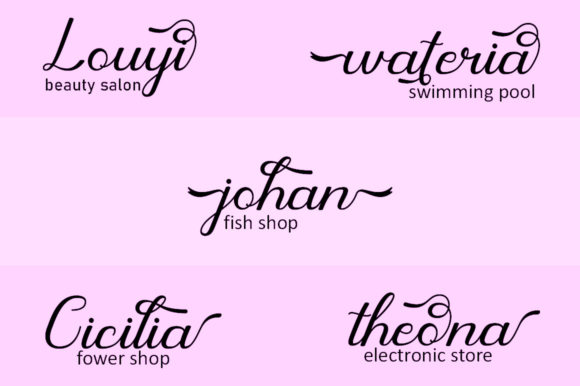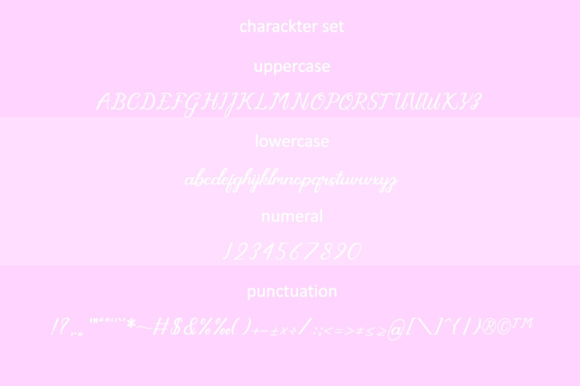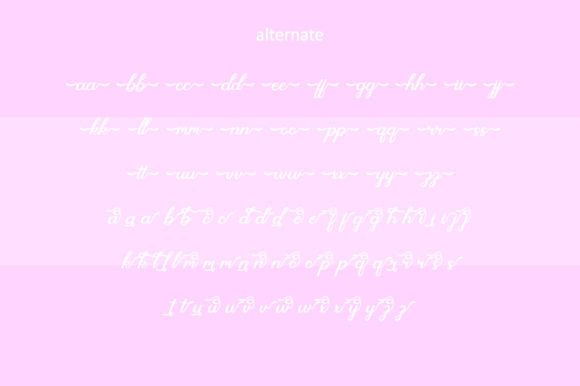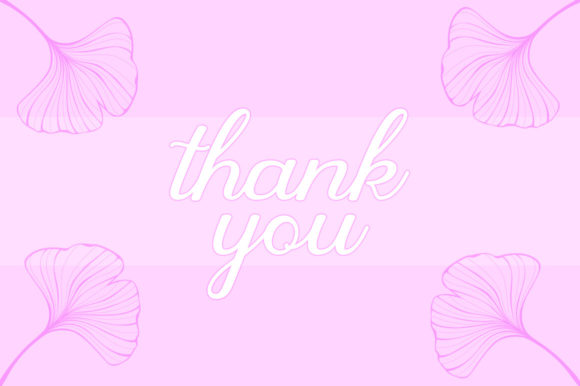
Introduction to Andany Font
Andany is an elegant script font with a contemporary atmosphere and impeccable form, inspired by timeless classic calligraphy.
Not too thin and not too thick, balanced and varied, this font was designed to enhance the beauty of your projects Andany is PUA encoded which means you can access all of the glyphs and swashes with ease.